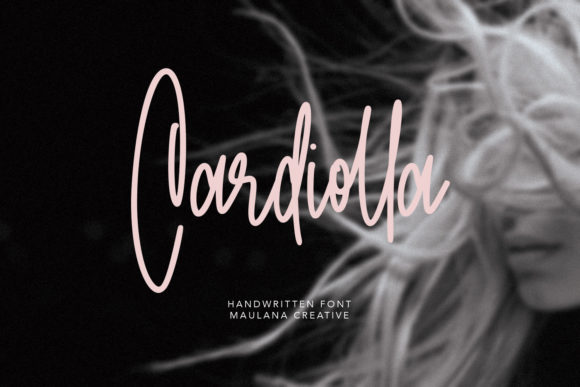
The Designer’s Delight: How Cardiolla Font Can Elevate Your Creative Projects
What I Love About Cardiolla
- ✨ Authentic Brush Feel: Cardiolla’s handcrafted look is incredibly realistic, giving your designs a personal touch that’s hard to replicate with generic fonts.
- ✅ Versatility: From signatures and stationery art to logos, typography quotes, and website headers, Cardiolla is a versatile font that can adapt to various design needs.
- 💫 Stylish and Eye-Catching: Its unique blend of elegance and playfulness makes it perfect for creating spectacular designs that grab attention.
While Cardiolla is an amazing font, there are a few things to keep in mind:
- 🤔 Legibility at Small Sizes: Like many script fonts, Cardiolla can become a bit tricky to read at very small sizes. It’s best used at larger sizes where its details can shine.
The Story Behind Cardiolla: A Designer’s Inspiration
While the exact origins of Cardiolla might be shrouded in mystery, it’s clear that its creation was inspired by a passion for authentic, handcrafted design. Imagine a designer, sitting with a brush and ink, meticulously crafting each letterform to evoke a sense of warmth and personality. This love and attention to detail are palpable in every curve and stroke of Cardiolla.
Q: Is Cardiolla suitable for body text?
A: While Cardiolla is stunning, it’s primarily designed for display purposes. Its unique style and script nature make it less ideal for long-form body text.